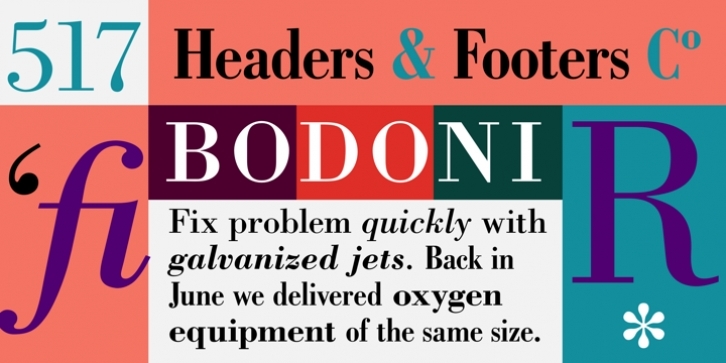
Bodoni was designed by Morris Benton, Giambattista Bodoni and published by Adobe. Bodoni contains 7 styles.
Giambattista Bodoni of Parma, Italy, designed and cut his typefaces at the end of the eighteenth century. The Bodoni types were the culmination of nearly 300 years of evolution in roman type design, in which fine hairlines contrast sharply with bolder stems, and serifs are often unbracketed. Bodoni is recognized by its high contrast between thick and thin strokes, pure vertical stress, and hairline serifs. This particular version of Bodoni was first created by Morris Fuller Benton for American Type Founders between 1908 and 1915. It brings elegance and sparkle to any graphic image, including headlines, text, and logos.